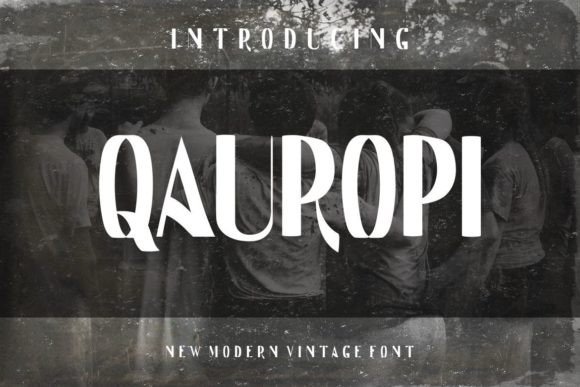
Introducing Qauropi, the captivating display font that is set to revolutionize your design endeavors. This masterpiece, crafted with precision by studioaary, is an exquisite font family that exudes elegance and sophistication. With its striking serifs and refined curves, Qauropi is the perfect choice for creating captivating logos, eye-catching headlines, and stunning posters.
Unleash your creativity and let Qauropi be the beacon of your visual expression. Its versatility knows no bounds, making it seamlessly adaptable to a myriad of design projects. Whether you're a seasoned graphic designer or just starting your creative journey, Qauropi is the perfect companion to elevate your designs to new heights.
Immerse yourself in Qauropi's intricate details and discover a world of typographic beauty. Its meticulously crafted characters dance harmoniously on the page, creating a visual symphony that captivates the senses. Qauropi's inherent charm lies in its ability to transform ordinary words into extraordinary works of art.
Step into the realm of Qauropi and embrace a font that is as unique as your imagination. Its distinctive letterforms and graceful swashes add a touch of elegance to any project, making it perfect for crafting wedding invitations, certificates, and other formal documents. Let Qauropi be the voice of your most heartfelt messages, adding a touch of timeless beauty to every word.
Don't settle for ordinary fonts that blend into the background. Embrace Qauropi, a display font that commands attention and leaves a lasting impression. Its enchanting beauty and versatility make it the perfect choice for designers who want to make a statement with their work.